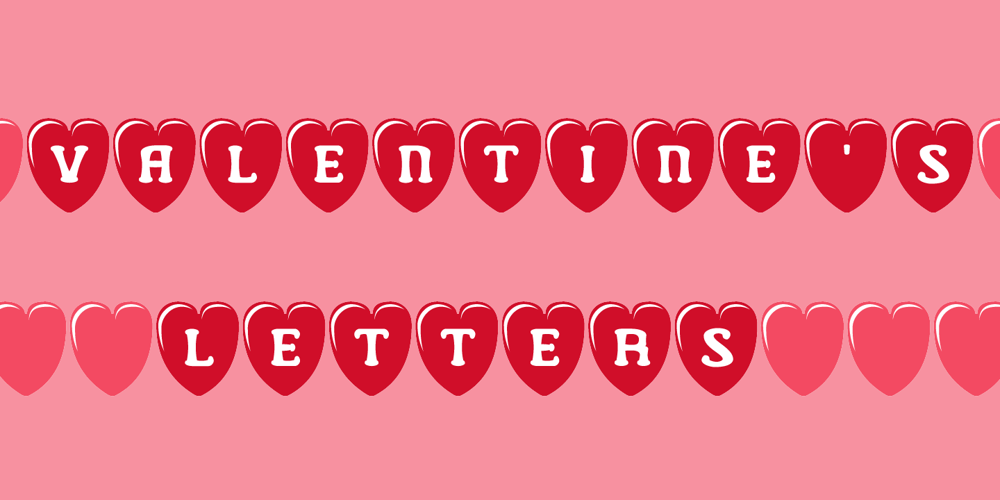
Valentine’s Letters
Valentine’s Letters font
Valentine’s Letters Font Family was designed by Paul James Lloyd and published by Greater Albion Typefounders. Valentine’s Letters contains 1 styles and family package options. Remember party banners made out of string and letters on cutout card shapes? Well, Valentine’s letters is the typeface equivalent of these joyful banners. Valentine’s Letters will let you string heart shapes, each bearing an individual character across the page, making a romance filled banner. Have fun!